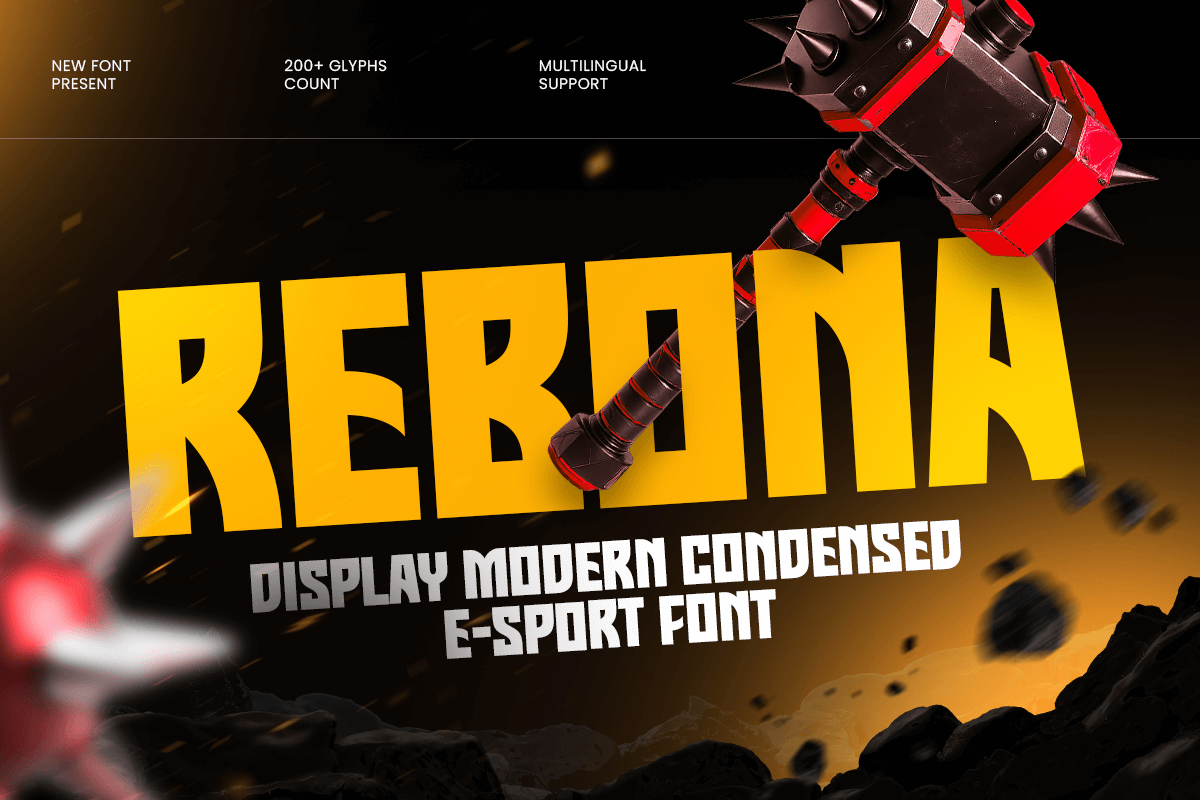
Rebona
-Display Modern Condensed E-Sport Font
Rebona - Display Modern Condensed E-Sport Font
REBONA is a display modern condensed e-sport font crafted to deliver speed, strength, and sharp competitive energy. With tall condensed proportions, bold structure, and a futuristic athletic feel, this typeface creates a high-impact visual tone that feels aggressive, modern, and instantly ready for action.
Designed for gaming and performance-driven branding, REBONA works powerfully across esports logos, team identities, tournament posters, streaming graphics, game titles, social media promos, event banners, website headers, and digital campaign visuals. Its condensed form helps maximize space while keeping every headline strong, readable, and full of momentum across both screen and print layouts.
Whether you’re building an esports team identity, launching a gaming event, creating a high-energy sports campaign, or designing bold digital promos, REBONA provides a modern condensed foundation that makes your typography feel fast, competitive, and unforgettable.
Inspiration Behind REBONA
REBONA is inspired by modern esports branding and futuristic sports typography—where speed, precision, and strong vertical rhythm define the visual language. The design focuses on condensed impact, sharp energy, and digital-ready clarity to support competitive identities, gaming visuals, and bold promotional design with a sleek modern edge.
REBONA Font Features:
• Modern condensed letterforms with bold e-sport character
• Perfect for esports logos, team branding, and tournament visuals
• Strong vertical structure for compact, high-impact headlines
• Sharp readability for streaming graphics and digital promotions
• Esports logos, gaming team identity, and competitive branding systems
• Tournament posters, event banners, and championship visuals
• Streaming overlays, social media promos, and digital ads
• Game titles, website headers, and futuristic headline typography
• Sports-tech campaigns, fitness promotions, and bold marketing assets